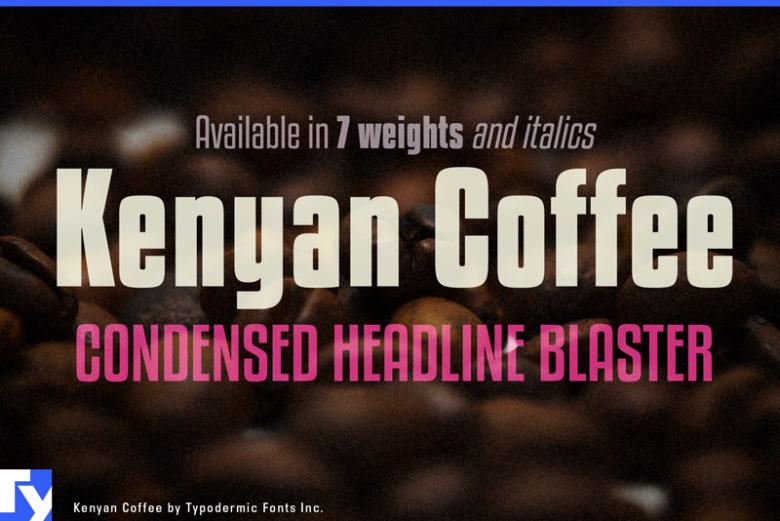
Kenyan Coffee is a narrow headline typeface created in 1999. This beautiful narrow, condensed sans serif is a great font for giving your designs a clean feel. This free font is offered by Typodermic.
Kenyan Coffee Font